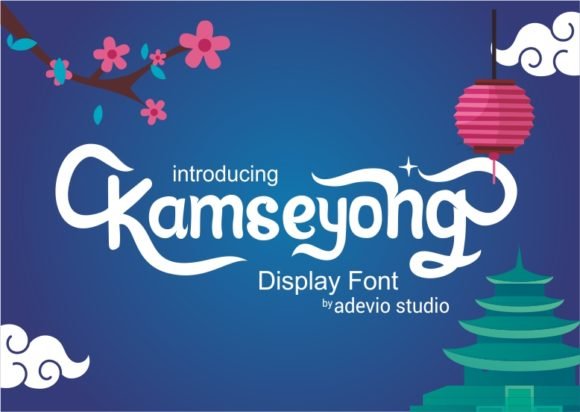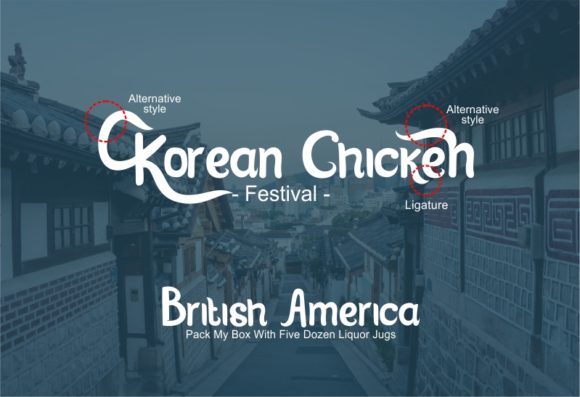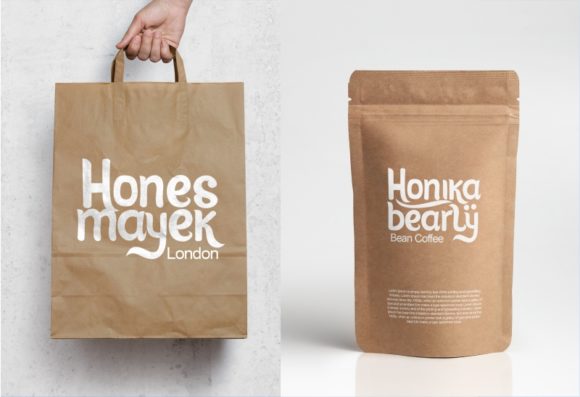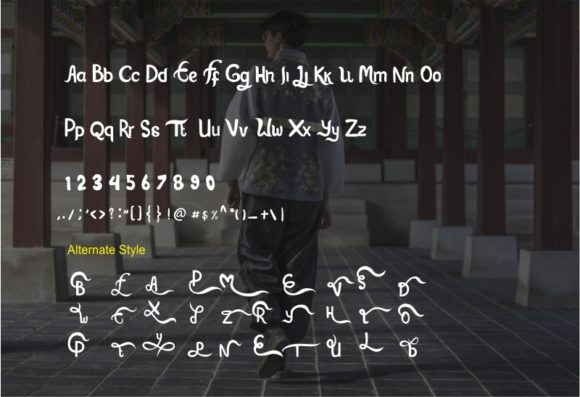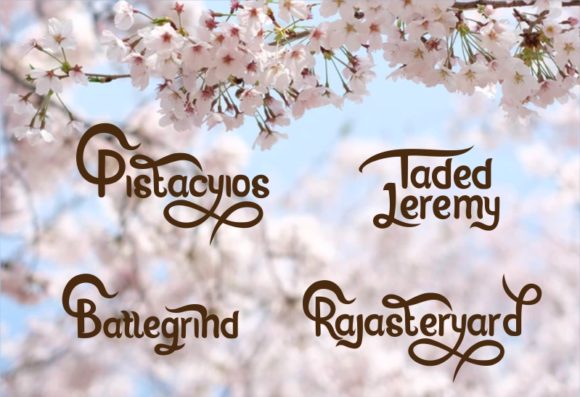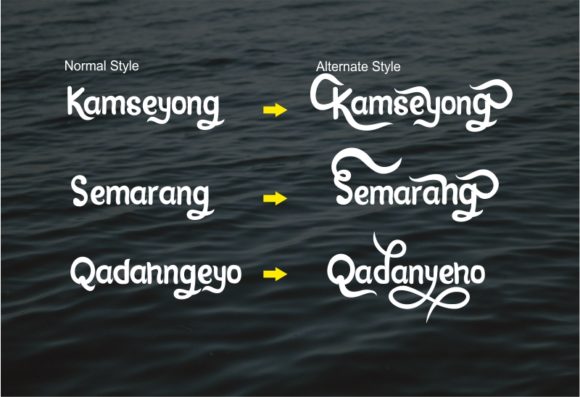
Enter Kamseyong Font, a charming display font that emerges from the perfect pairing of a brush pen and pencil. Its endearing and authentic look is sure to bring any project to life. Whether you’re designing a logo, creating a handmade card, or crafting a unique piece of art, Kamseyong Font is the perfect companion to add a touch of personality and whimsy.
Kamseyong Font Key Features
- Unique Characteristics: Kamseyong font features a distinctive, hand-drawn style with unique letterforms and flourishes, making it ideal for creative and artistic projects.
Kamseyong Font Review
Overall, I think the Kamseyong Font has some nice features, but it also has some limitations.
The Kamseyong Font has a unique, modern design that can add a touch of elegance to any project.
The font is highly customizable, with a wide range of styles and weights to choose from.
It’s also highly legible, even at smaller font sizes, making it a great choice for body text.
The Kamseyong Font can be a bit too ornate for some projects, making it hard to read at certain font sizes.
It may not be the best choice for projects that require a lot of bold or italic text, as the font can get a bit messy.
Additionally, the font’s complexity can make it difficult to pair with other fonts, limiting its versatility.
Overall, I think the Kamseyong Font is a solid choice for projects that need a touch of sophistication and elegance. However, it may not be the best choice for every project, and its limitations should be carefully considered before making a decision.
Tips for Getting the Most Out of Kamseyong Font
Use Kamseyong font for titles and headings to add a touch of elegance and sophistication to your designs.
Use it in conjunction with other fonts to create a unique and eye-catching visual hierarchy.
Experiment with different font sizes and styles to add emphasis and create visual interest.
Kamseyong font is ideal for:
– Luxury brand designs
– Fashion designs
– High-end product packaging
– Elegant invitations and event materials
– Any design that requires a touch of sophistication and elegance
Alternatives to Kamseyong Font
Open Sans is a modern sans-serif font designed by Steve Matteson. It is a versatile font suitable for both digital and print media. Open Sans is ideal for body text, headings, and titles due to its clear and readable characteristics.
Compared to Kamseyong Font, Open Sans has a more neutral and clean design, making it suitable for a wider range of applications. While Kamseyong Font has a more unique and artistic feel, Open Sans is a more conventional choice for everyday use.
Lato is a sans-serif font designed by Łukasz Dziedzic. It is a highly readable font suitable for both digital and print media. Lato is ideal for body text, headings, and titles due to its clear and elegant characteristics.